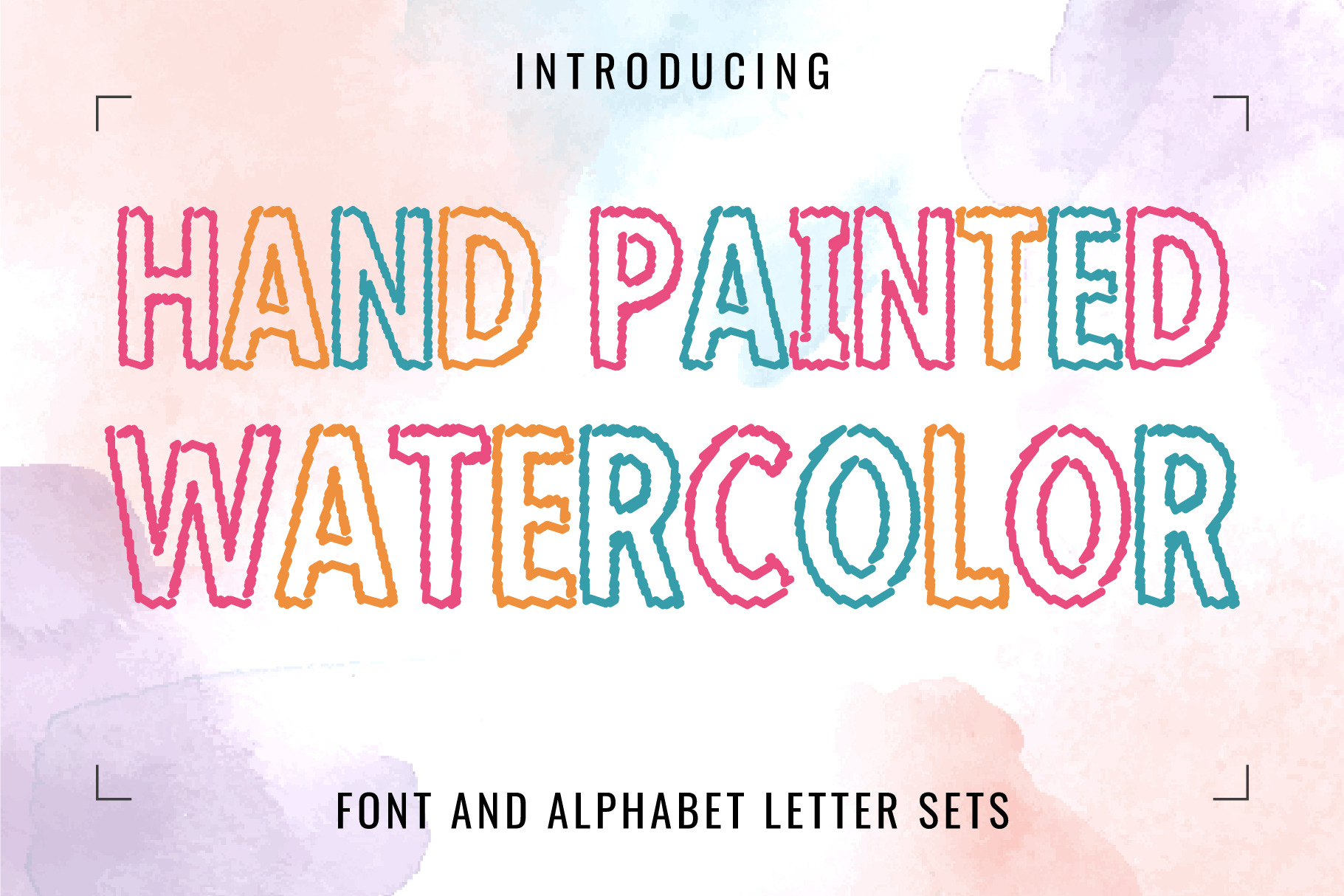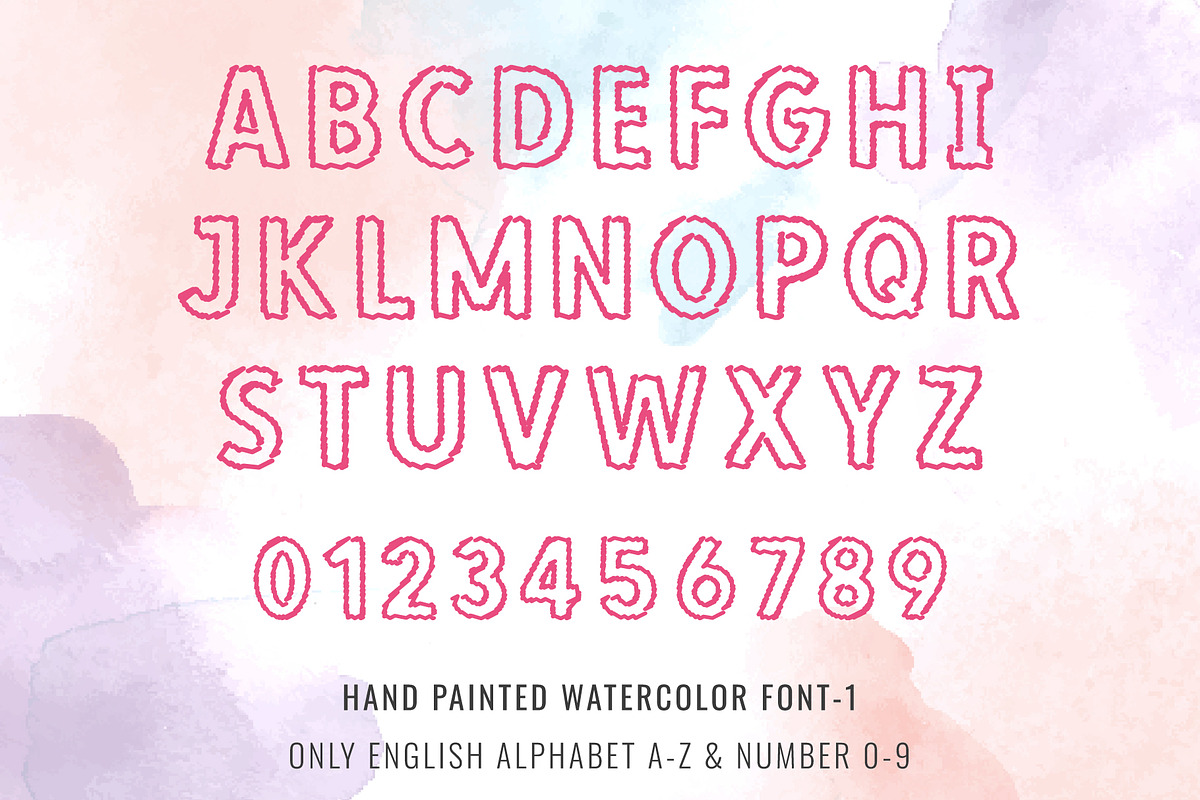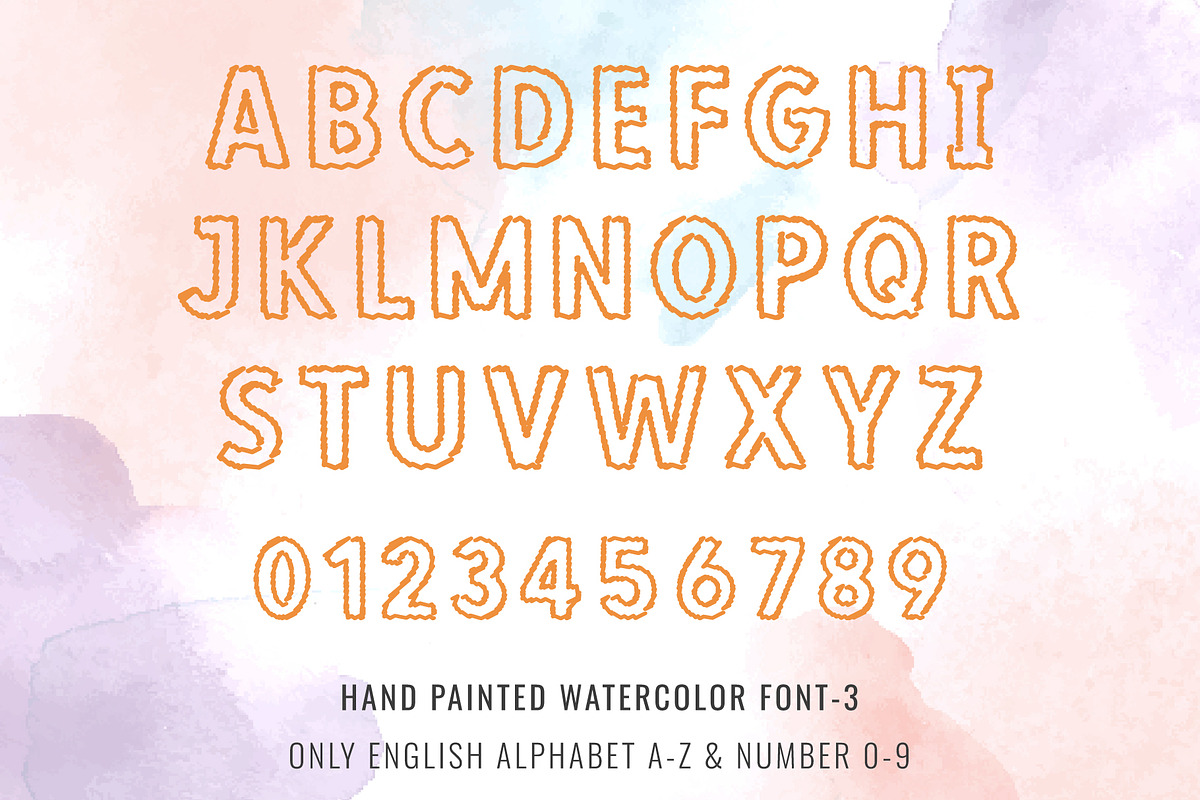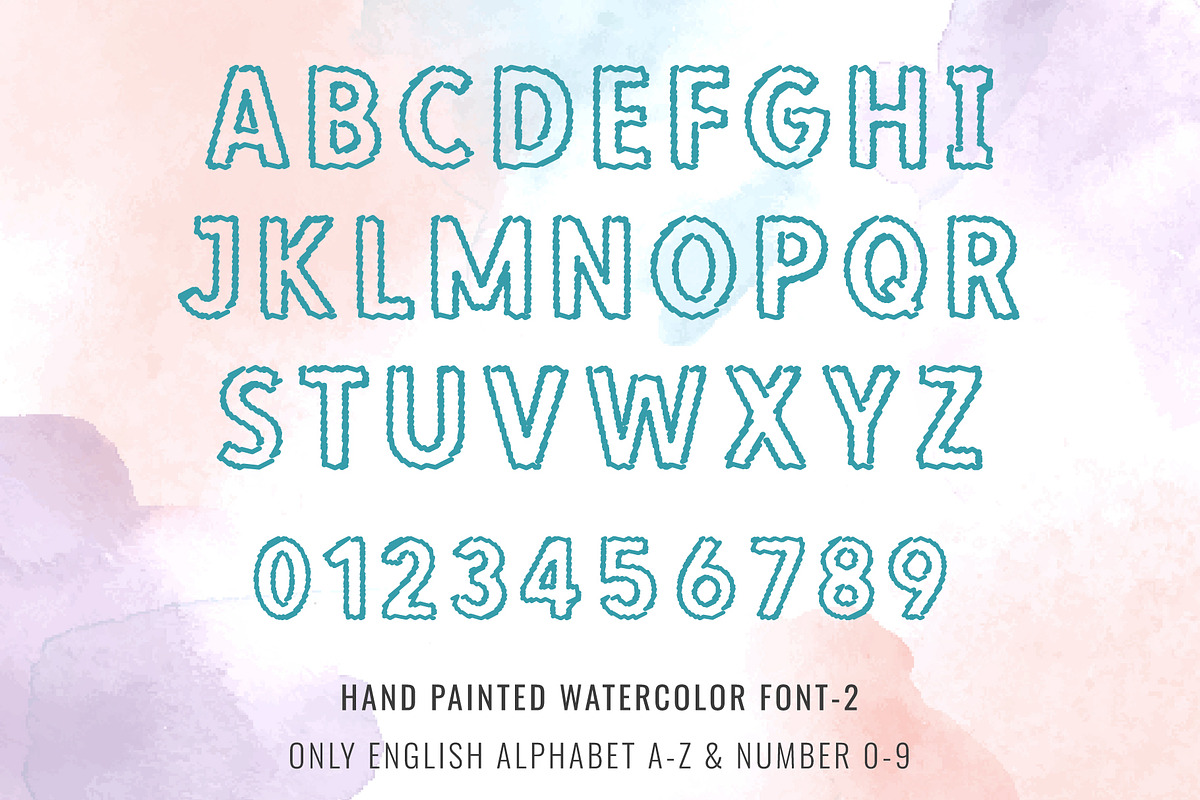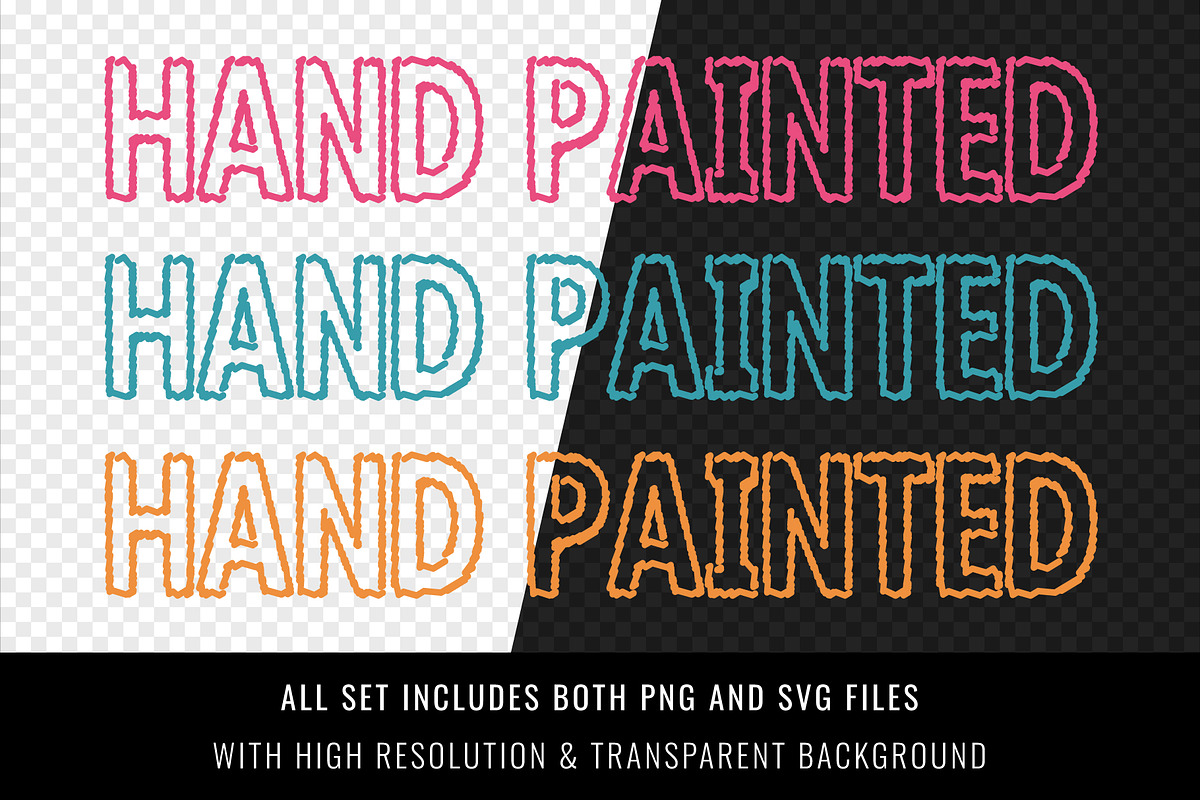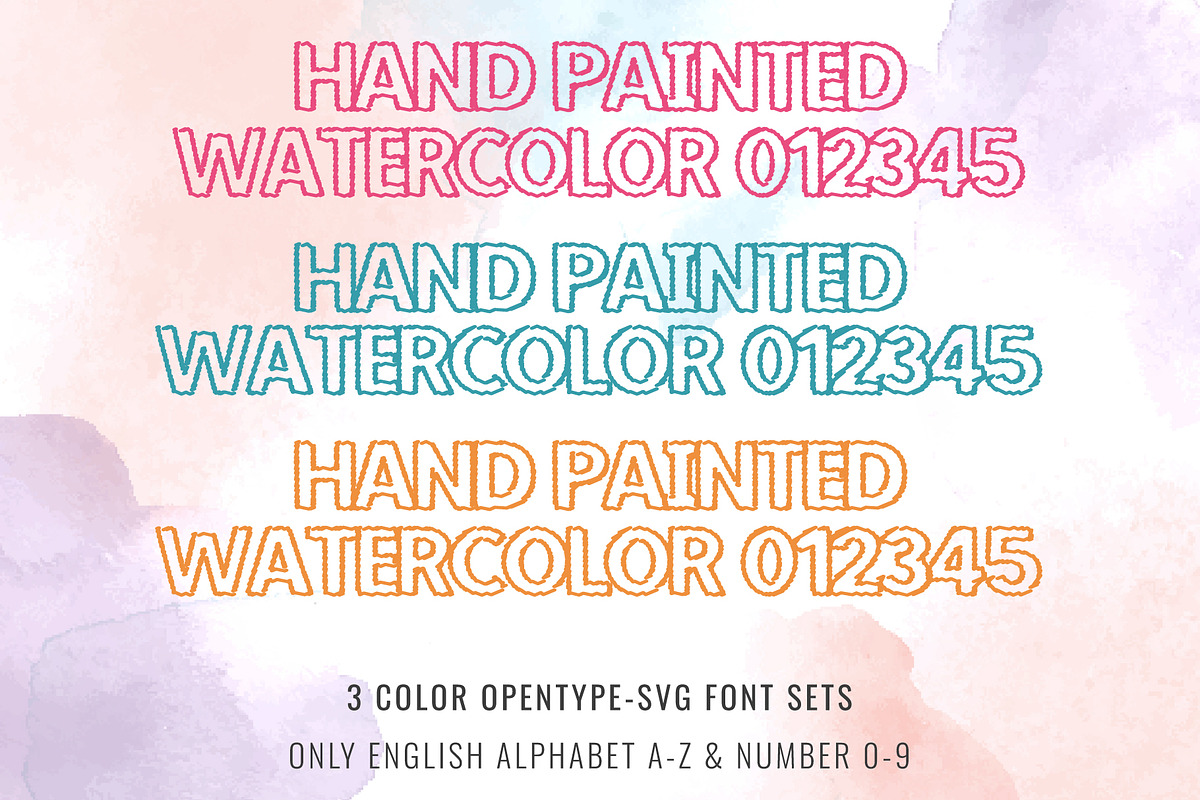
Hand Painted Watercolor Font
Introducing “Hand Painted Watercolor Font” – a colorful watercolor font designed for visual impact. It is the best choice for creating eye-catching postcards, tot bags, t-shirts, and many more. Perfect for positive art, children’s design, vibrant advertising, and colorful identity. Add it confidently to your projects, and you will love the results.
- 3 Color font sets in the family.
FEATURE:
- This entire font is capitalized.
- Only the English language is available.
- Letters: A B C D E F G H I J K L M N O P Q R S T U V W X Y Z.
- Numbers: 0 1 2 3 4 5 6 7 8 9.
- Excluding punctuation.